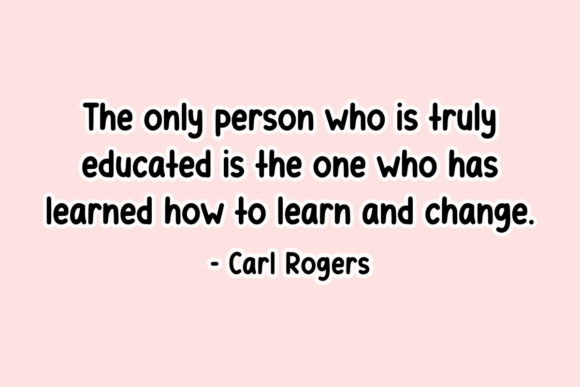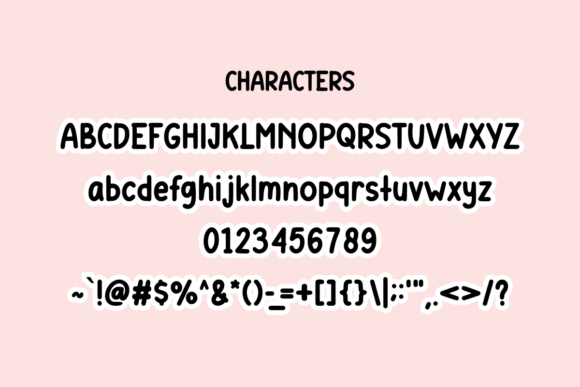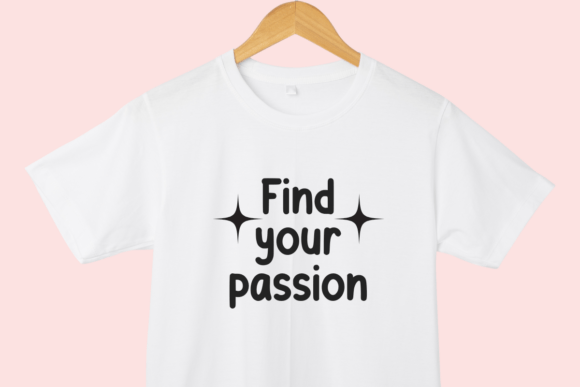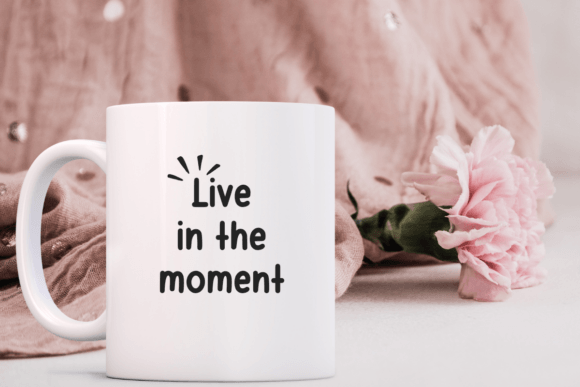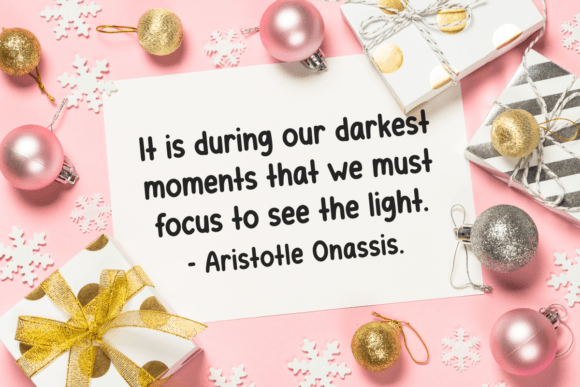
Cocoa Crush Font: The Perfect Addition to Your Design Arsenal
Are you a designer, crafter, or DIY enthusiast looking for a font that can add a touch of playfulness and charm to your projects? Look no further than the Cocoa Crush Font. This versatile sans-serif font is perfect for a wide range of uses, from memos and journals to planners, greeting cards, and more.
What Makes Cocoa Crush Font So Special?
The Cocoa Crush Font is a unique and stylish font that is designed to add a touch of whimsy to any project. Its playful and modern design makes it perfect for a variety of applications, including:
- Memos and journals
- Notes and planners
- KDP interiors
- Scrapbooks and diaries
- Printables and templates
Perfect for Teachers and Planners
The Cocoa Crush Font is also ideal for teachers, daily planners, and notepads. Its clear and easy-to-read design makes it perfect for:
- Weekly and monthly planners
- Notebook paper and journals
- Calendars and to-do lists
- Workbooks and templates
Adding Charm to Your Projects
The Cocoa Crush Font is designed to add a touch of charm and personality to your projects. Whether you’re creating personal or professional projects, this font is versatile and stylish enough to make a statement. From planners and journals to greeting cards and invitations, the Cocoa Crush Font is the perfect addition to your design arsenal.
Why Choose Cocoa Crush Font?
So why choose the Cocoa Crush Font for your next project? Here are just a few reasons:
- Playful and modern design: The Cocoa Crush Font has a unique and stylish design that’s perfect for adding a touch of whimsy to your projects.
- Versatile and adaptable: This font is perfect for a wide range of applications, from personal projects to professional designs.
- Easy to read and use: The Cocoa Crush Font is clear and easy to read, making it perfect for planners, journals, and other projects where readability is key.
Tips for Using Cocoa Crush Font
Here are a few tips for using the Cocoa Crush Font in your next project:
- Mix and match with other fonts: The Cocoa Crush Font pairs well with other fonts, so don’t be afraid to experiment and find the perfect combination for your project.
- Use it for headings and titles: The Cocoa Crush Font is perfect for headings and titles, where its playful and modern design can really shine.
- Experiment with different colors and textures: The Cocoa Crush Font looks great in a variety of colors and textures, so don’t be afraid to get creative and try out different looks.
- What is the Cocoa Crush Font?
- The Cocoa Crush Font is a playful sans-serif font that’s perfect for a wide range of design applications.
- What can I use the Cocoa Crush Font for?
- The Cocoa Crush Font is perfect for memos, journals, notes, planners, KDP interiors, greeting cards, invitations, scrapbooks, diaries, and printables.
- Is the Cocoa Crush Font easy to read?
- Yes, the Cocoa Crush Font is clear and easy to read, making it perfect for planners, journals, and other projects where readability is key.